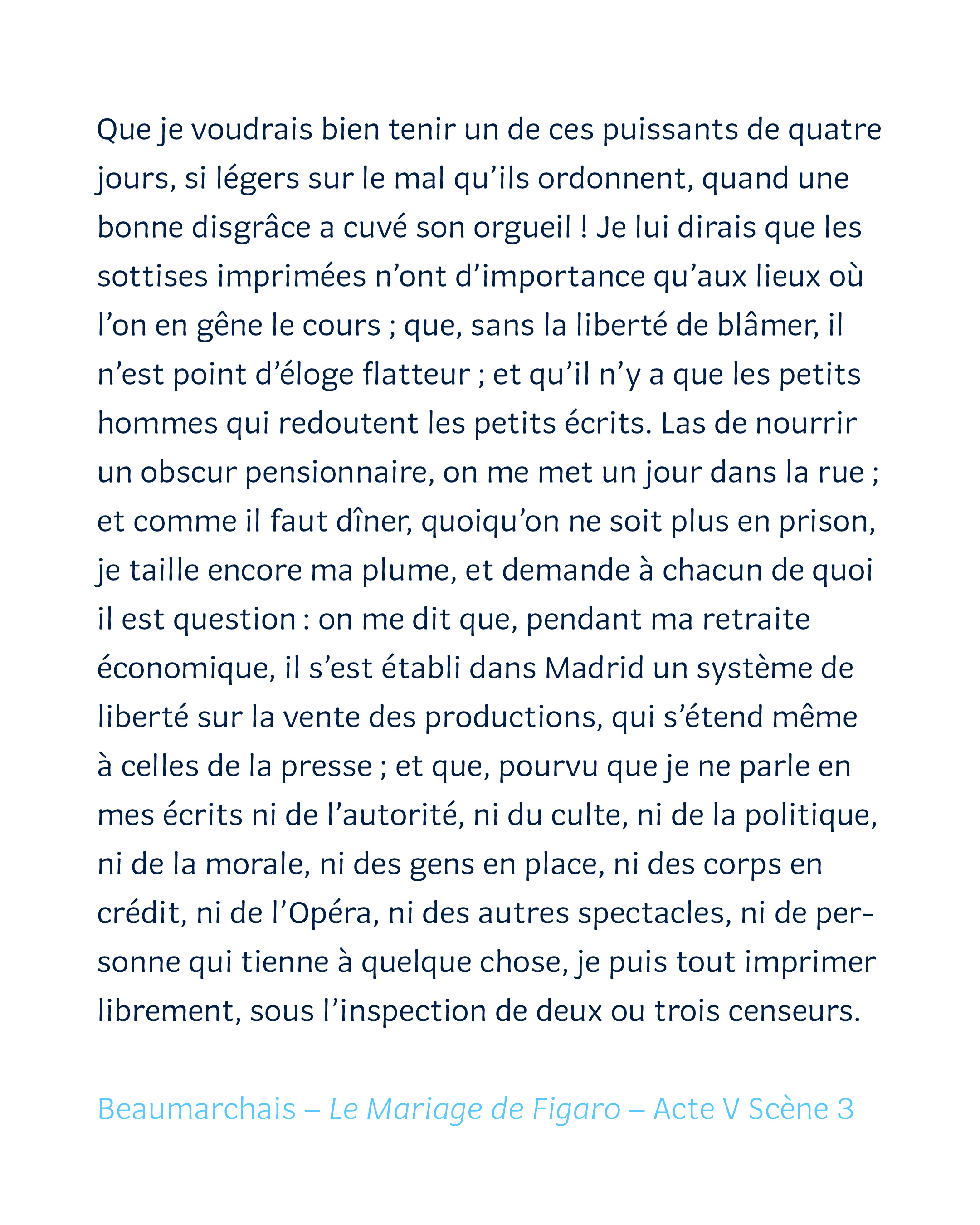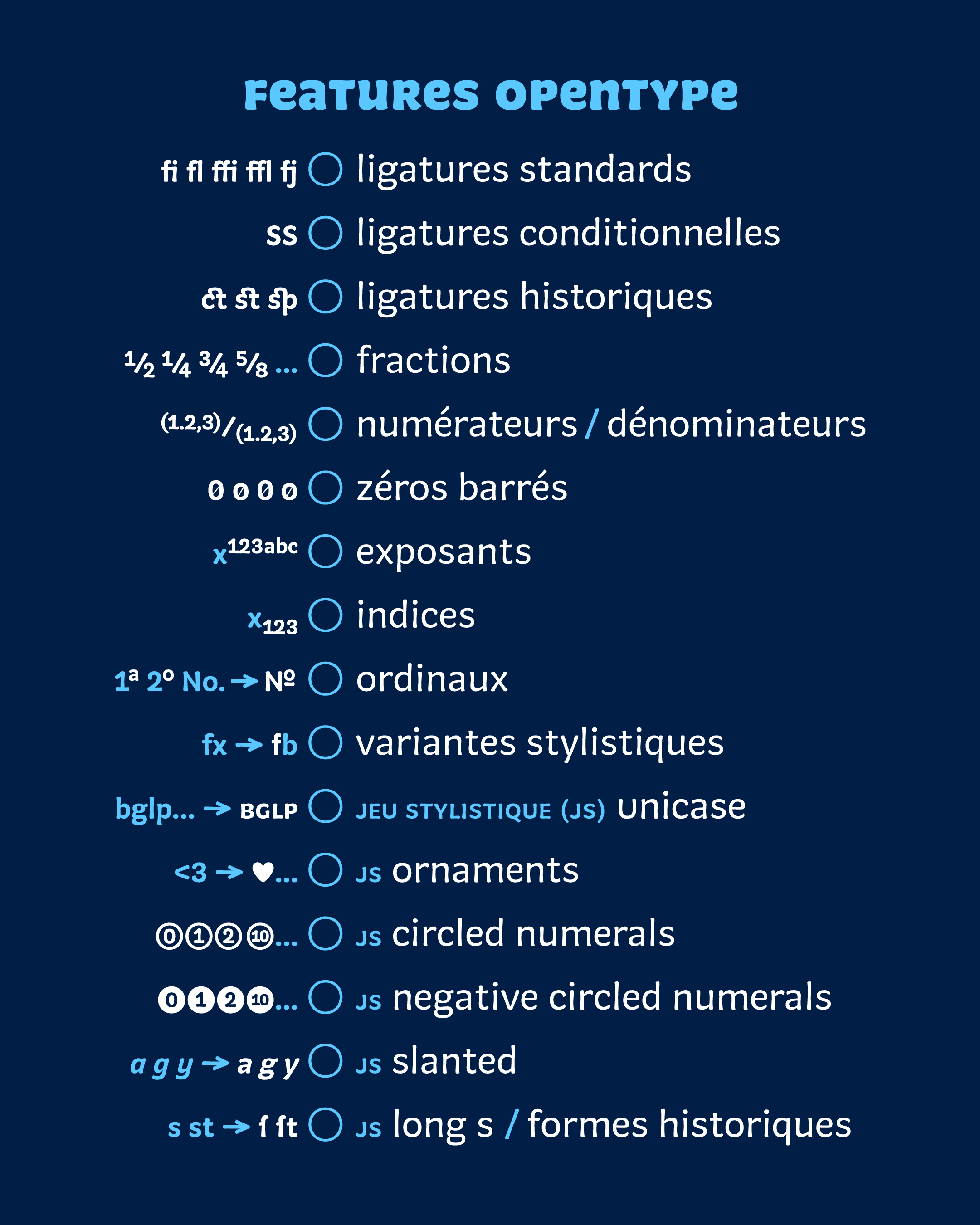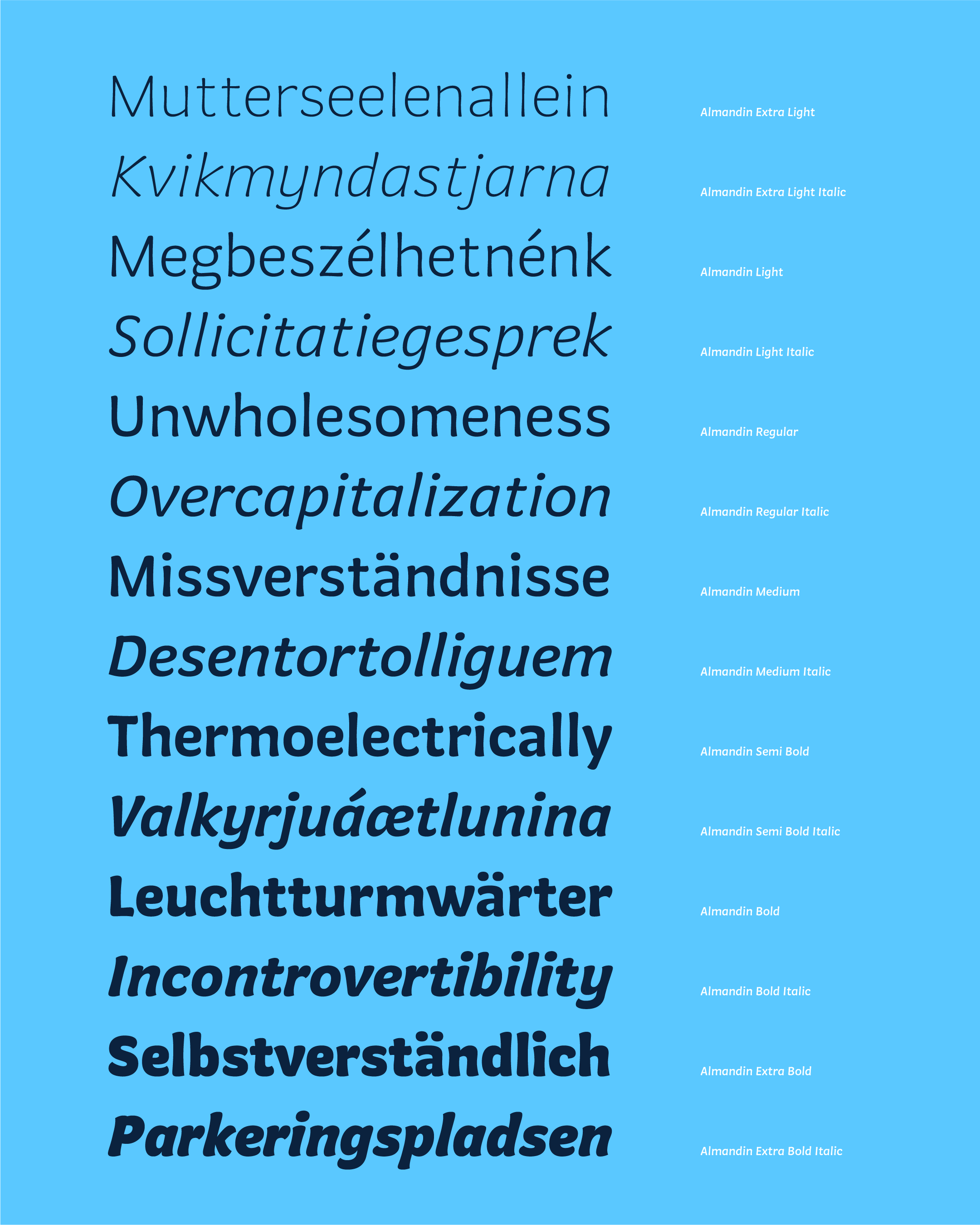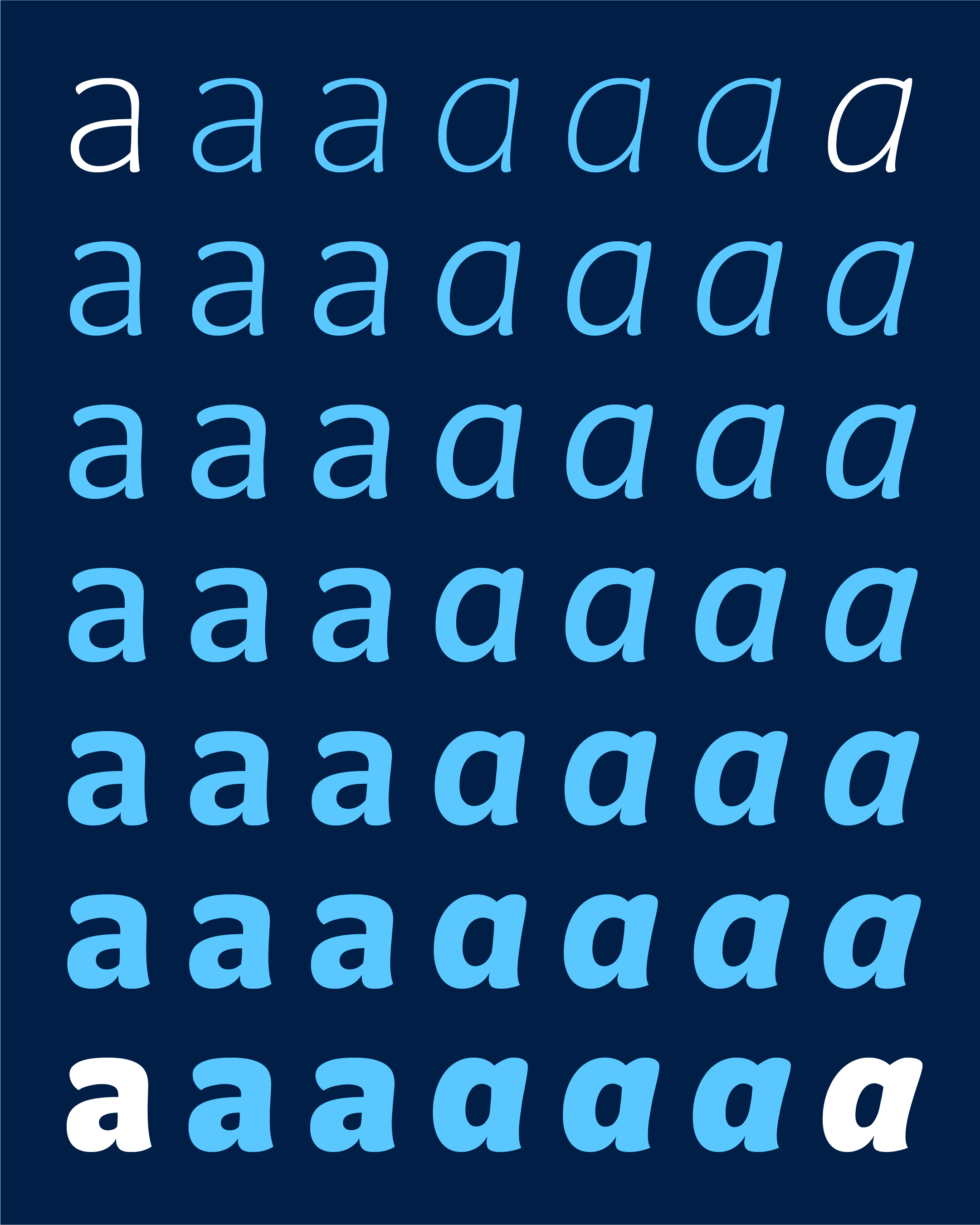
Almandin
Almandin is a slightly calligraphic sans-serif typeface developed with no time constraints, in a spirit of free experimentation. Created by four hands, the project evolved significantly from its early sketches. Influenced by Robert Slimbach’s work (especially Cronos) and shaped by training at the École Estienne, it aims to balance neutrality with a strong personality. Almandin is a variable font, features a consistent character width across all weights—a technically demanding choice that enhances visual coherence.